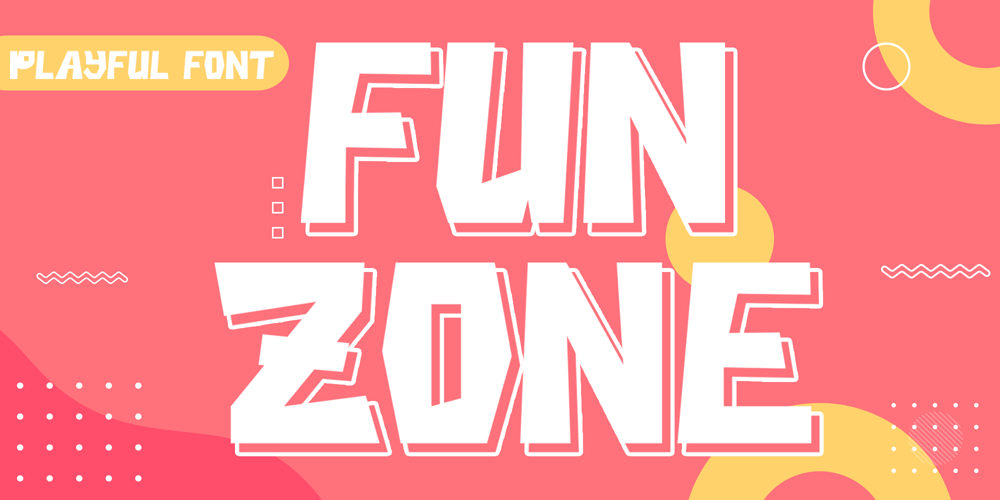
Fun Zone Font Family was designed by Alif Ryan Zulfikar and published by Sakha Design. Fun Zone contains 2 styles and family package options. Fun Zone is a fun, fun display font. With its modern and bold character, this typeface will be the right choice for you to use.